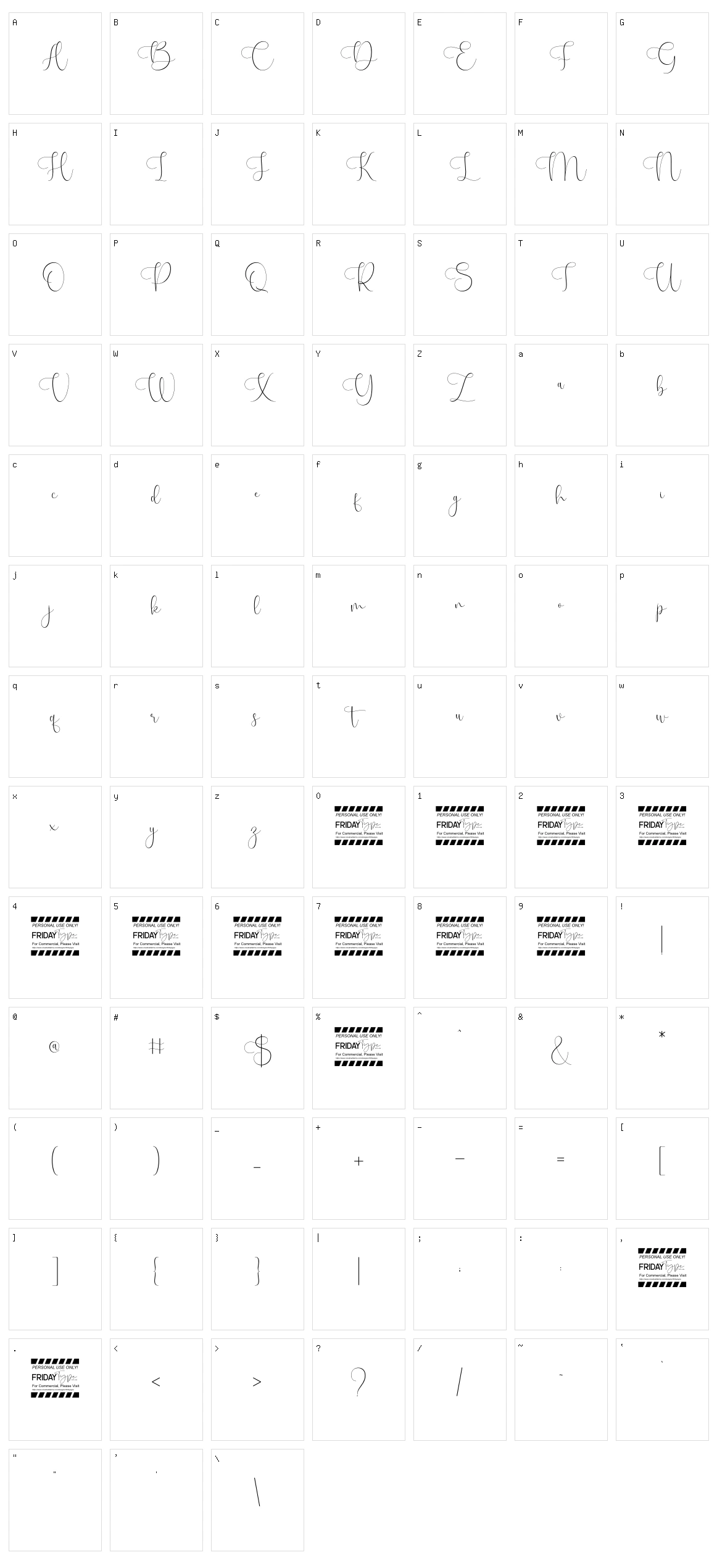
The free font Landyon Script is carefully designed by Fridaytype, showcasing a thoughtful balance of creativity and usability and falls under the Script font style. When you download the ZIP file, it contains only 115.55 KB of font files, making it lightweight and quick to download. Please review the license details below to understand permitted usage and distribution rights. If license information is not available, we recommend using this font for personal projects only or contacting the author directly for commercial usage permissions.